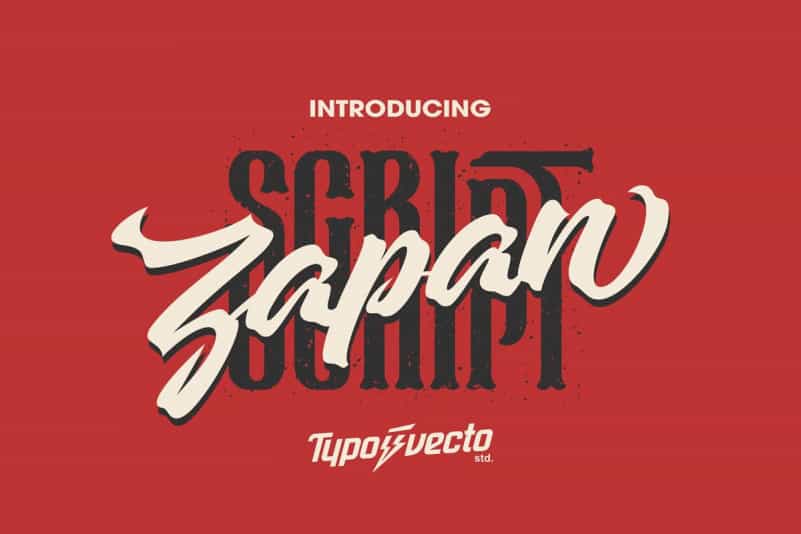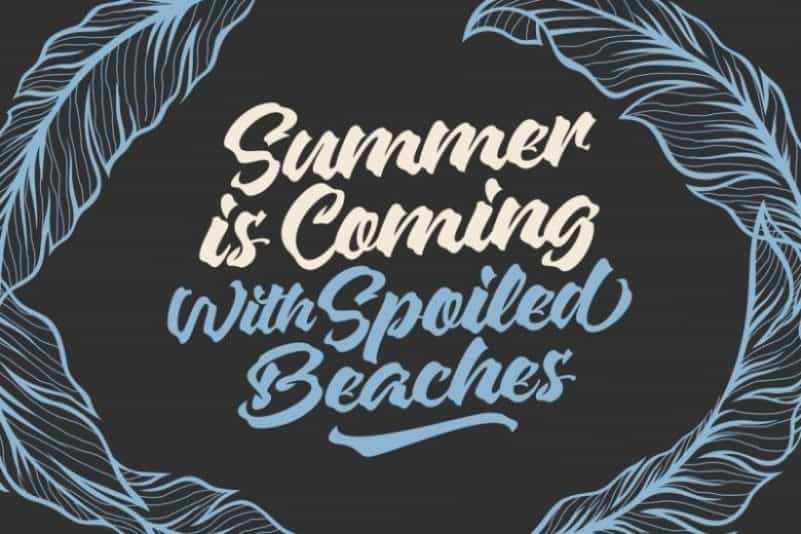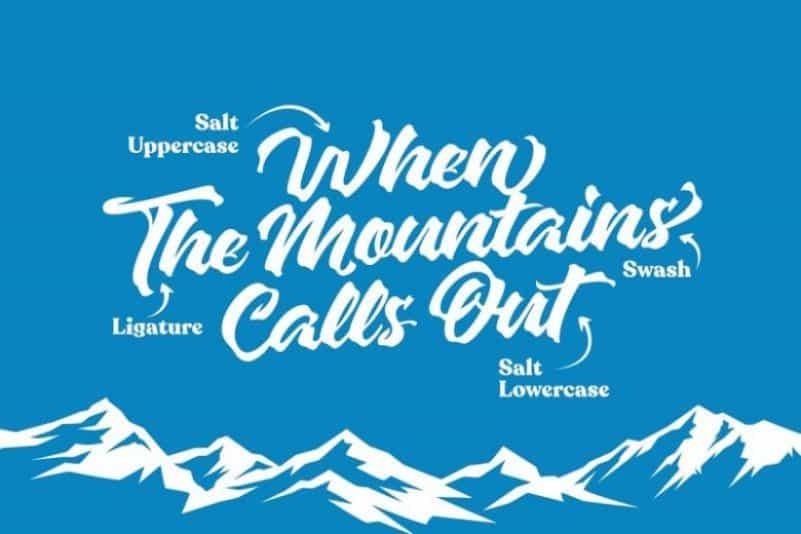
Discover Zapan Font, part of the Brush Calligraphy collection—a versatile and unique font perfect for adding a personal touch to your projects. Download it for free and enjoy crafting designs with style, from invitations to social media posts. This font is available exclusively for personal use, giving you the freedom to create without limits. Unlock your creativity with Zapan Font today!
Zapan Font is a work, and it is handwritten and has its own features in terms of the Zapan style. It is ideal for invitations, signatures, blogs and social media, business cards, product brands among others.